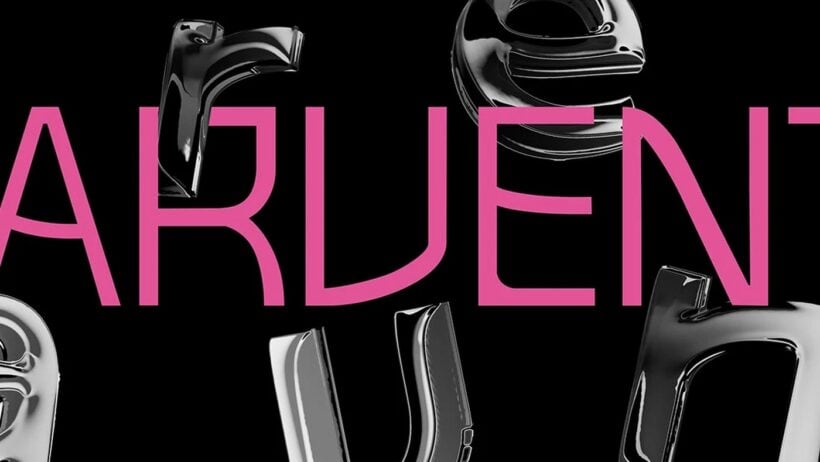
Marvento Variable Typeface Specimen, Risograph Print Edition Celebrating Color and Texture
Marvento, a 7-weight risograph specimen with fluorescent pink and teal overlays, translating variable type into tactile prints.
Marvento: Variable Type Made Tactile
As a branding curator, I champion projects that fuse typographic rigor with tactile craft. Gréti Horváth’s Marvento specimen translates variable type anatomy into palpable, printed layers. Seven weights morph from whisper thin strokes to bold, structured display forms. Risograph overlays, fluorescent inks, and textured stock reveal intersections and unexpected secondary hues. This specimen reads as both a practical type tool and an evocative print artifact. For brand builders, the project is a study in material authenticity and expressive restraint. It demonstrates how digital design benefits from analogue proofing and intentional production choices. Every spread informs typographic systems for bold identities.
As an expert curator, I value work that makes design thinking physically legible. Marvento’s restraint and material friction offer clear lessons for identity systems and packaging. The risograph process amplifies typographic nuance and rewards careful editorial rhythm. Designers will find grid strategies, large glyph studies, and color overlays to inspire their work. Clients will appreciate how physical proofing communicates craft, and justifies thoughtful production costs. This specimen is a rare teaching artifact, and a tactile manifesto for contemporary typographic identity. Read the featured project to see vivid spreads, technical notes, and the full portfolio link. It will sharpen typographic vision.